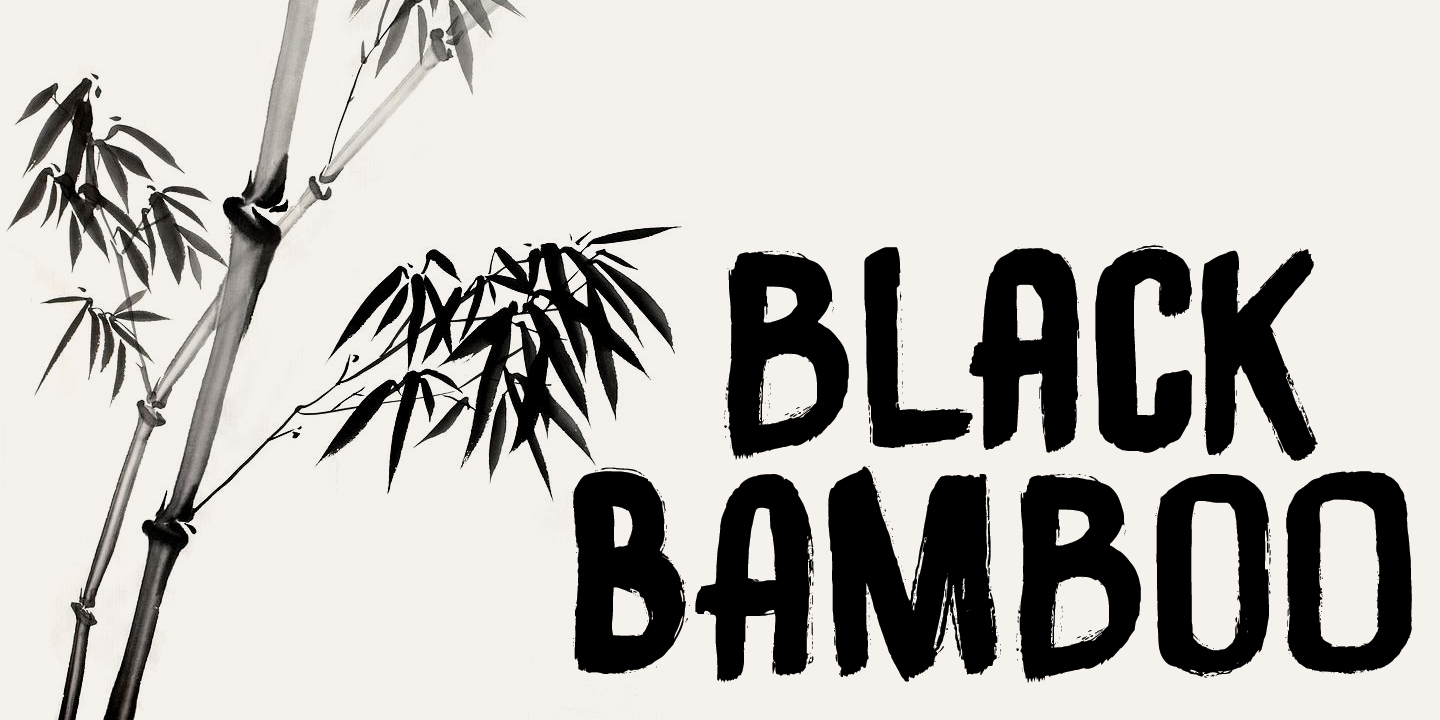
Black Bamboo Font Free Download – A Striking Asian-Inspired Display Typeface
Make a bold cultural statement with Black Bamboo Font Free Download, a powerful typeface that blends traditional East Asian brushwork with modern design aesthetics. Perfect for martial arts branding, cultural projects, and edgy packaging, this font delivers dramatic visual impact with authentic ink-brush character.
Why Black Bamboo Font Stands Out
1. Authentic Brushstroke Features
Dynamic ink bleed texture
Irregular stroke variations
Bamboo-inspired verticality
Martial arts school branding
Asian restaurant menus
Cultural festival posters
Tea/ceramics packaging
Calligraphy-inspired designs
3. Technical Specs
Uppercase A-Z + numerals
Special Asian-inspired glyphs
Multilingual support (Latin)
DIY Zen garden signs
Calligraphy practice templates
Asian-themed party invites
Personal art projects
Sake/tea brand packaging
Dojo/training center signage
Luxury hotel collateral
Cultural documentary titles
Designer's Ink-Wash Tips
Combine with rice paper textures
Use red/black/gold color schemes
Add subtle watercolor accents
48pt+ for full brushstroke impact
Works best in vertical layouts
Ideal for single-character statements